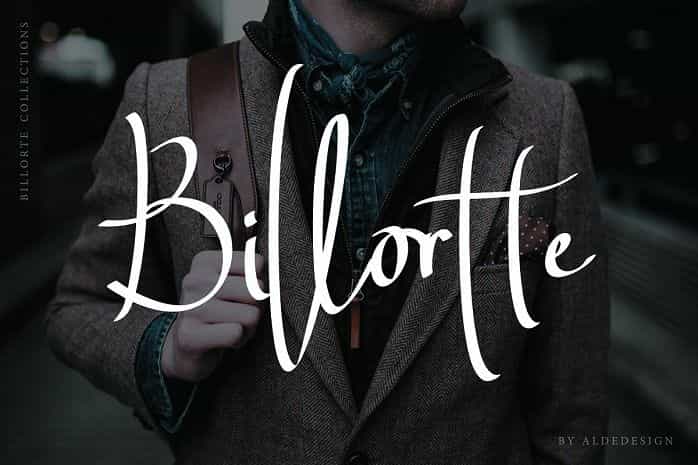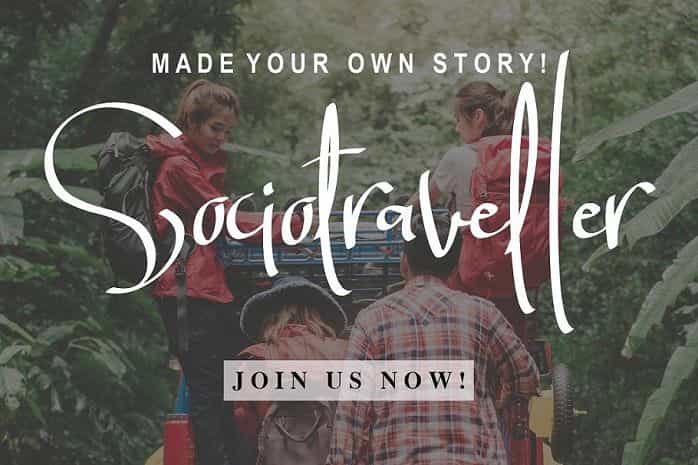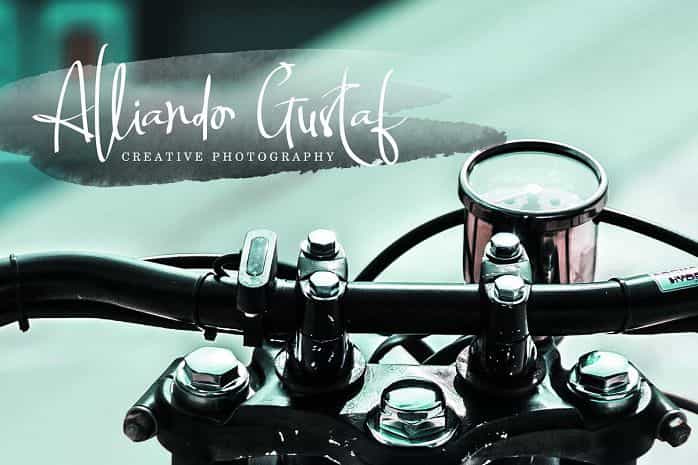
Introducing Billortte Font. Billortte is a font with the clean and elegant style, that has 2 Elegant Variations, opentype features such as ligatures and free Slant Version. We preserve the wise look of this font, which is also readable, elegant, stylish and attractive. Billortte Font is the best font to use on photography as watermark, signature or signature logo design, album cover, business card, quotes and many other design projects.